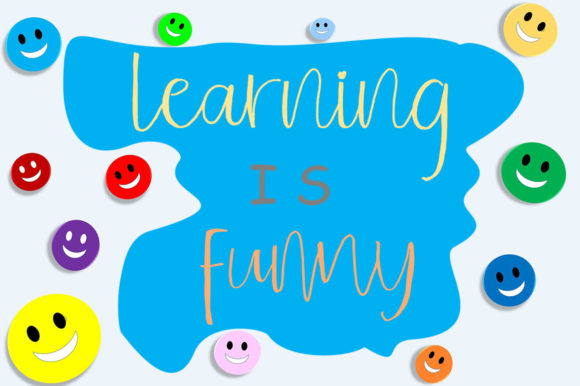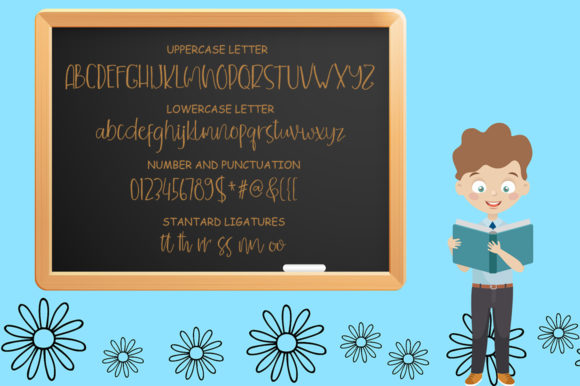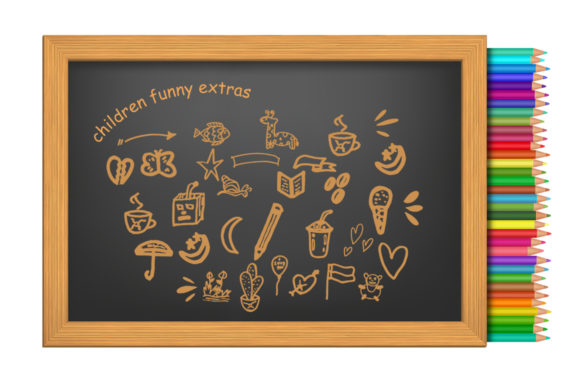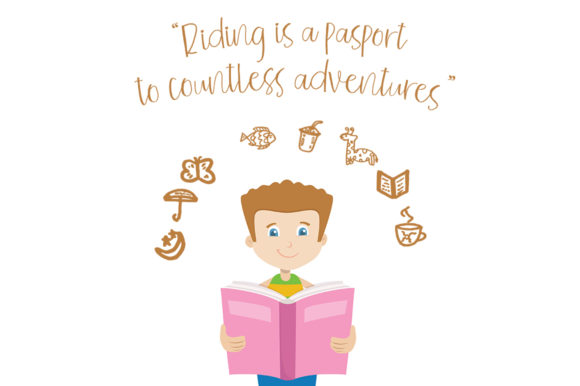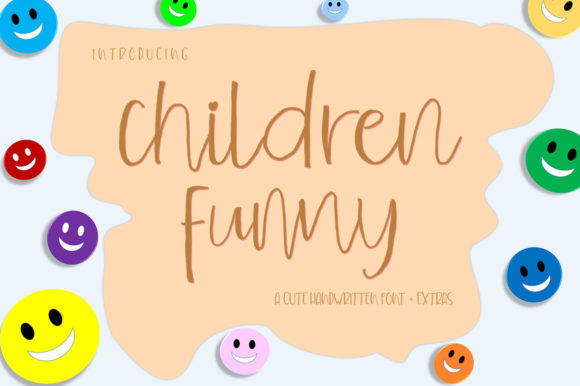
Children Funny Font
About Children Funny Font
As the name suggests, Children Funny is a hilarious and fun handwritten font that will add a contemporary look to any design idea. Get inspired by its whimsical style!